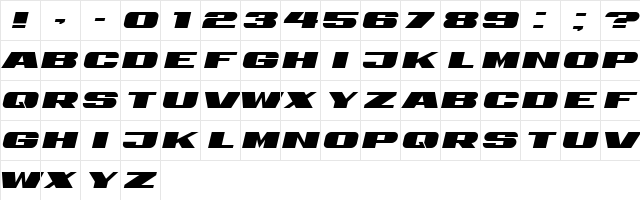
Retrive Italic
Design Context for Retrive Typeface
Retrive is a composed and adaptable typeface that performs quietly and consistently across a wide range of design contexts. Its italic angle brings a sense of urgency and motion to the letterforms.
Pro Tip: Try Retrive for annotation and caption copy alongside an upright companion — the contrast in angle creates a dynamic but ordered typographic system.